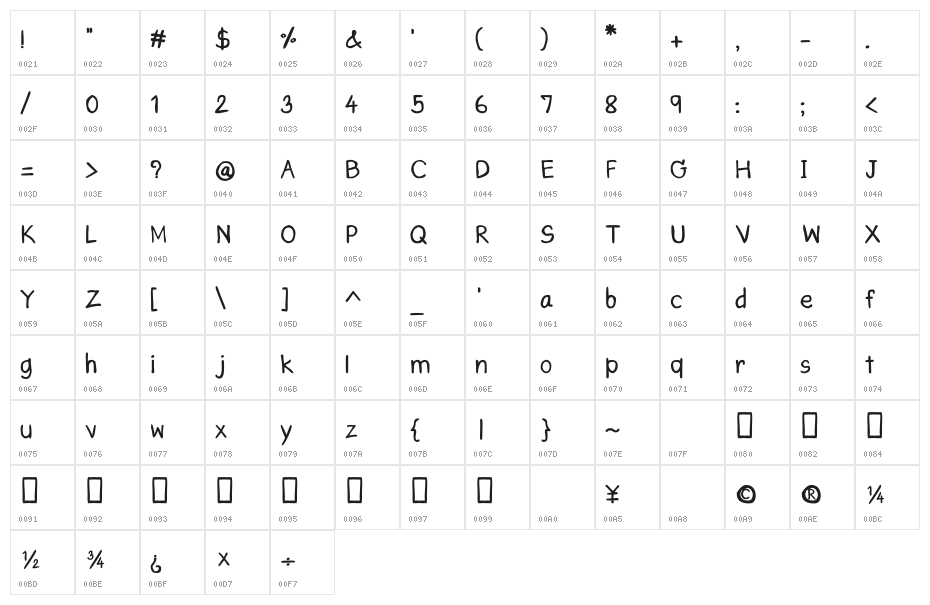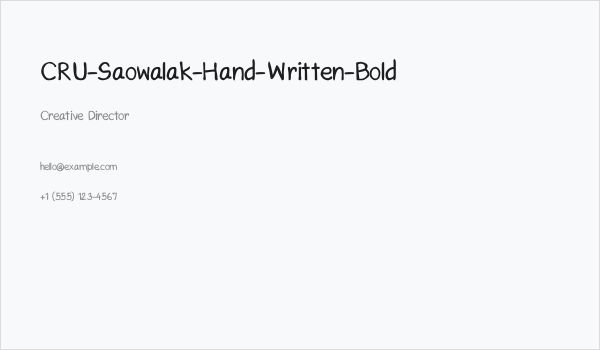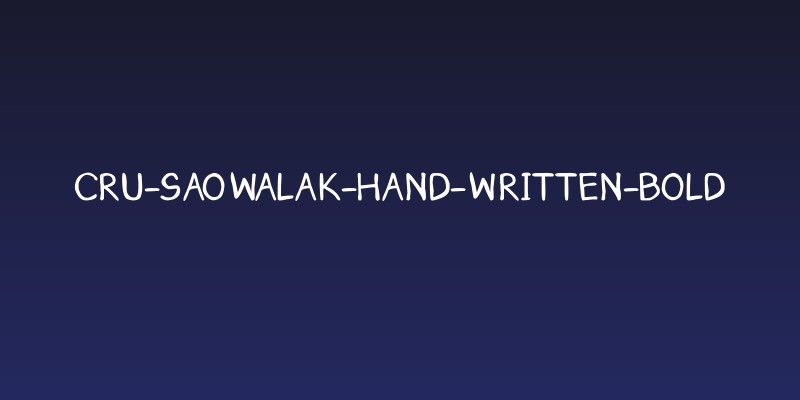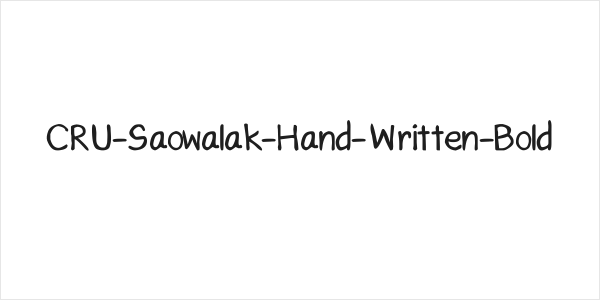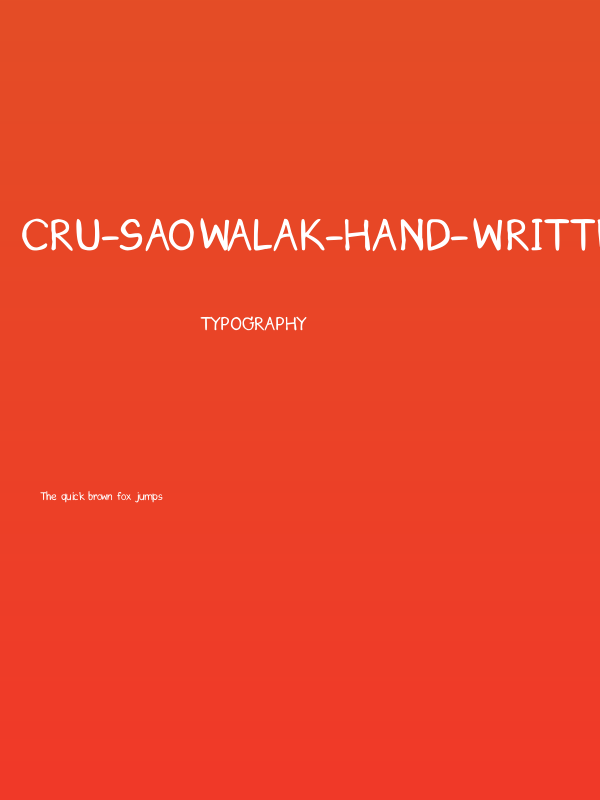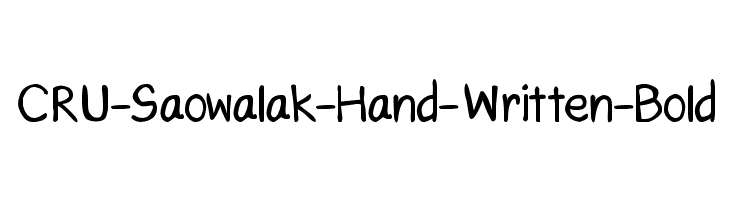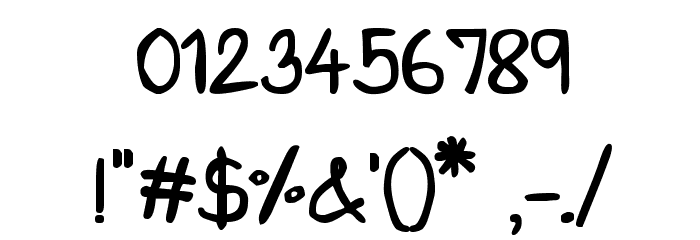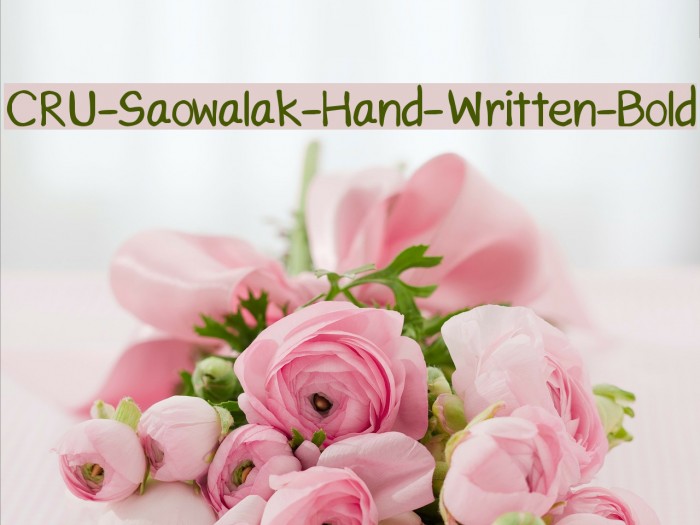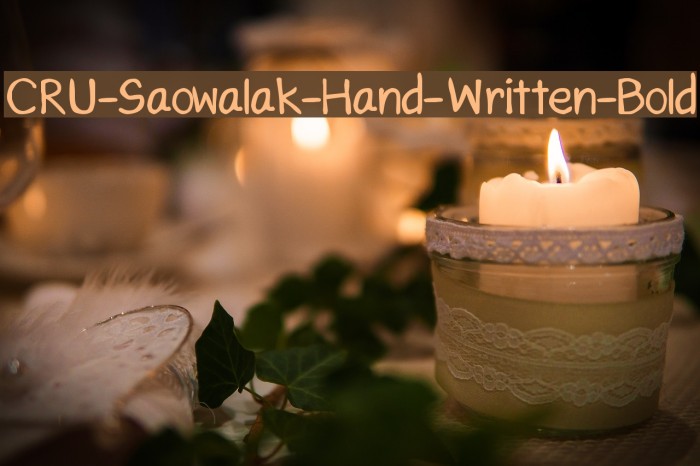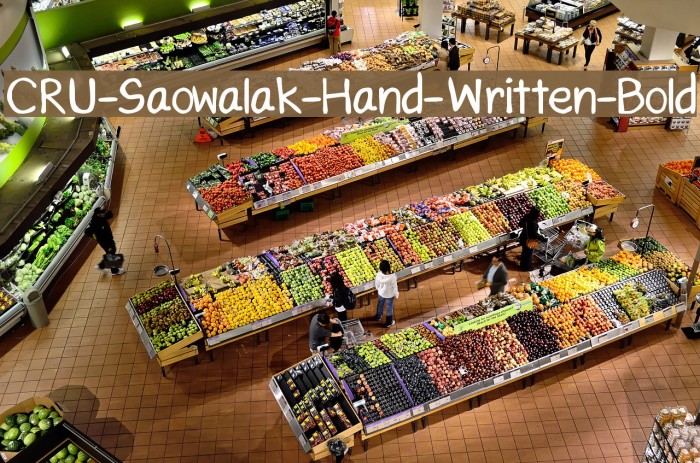
CRU-Saowalak-Hand-Written-Bold Font
CRU-Saowalak-Hand-Written-Bold Description
This font features a playful and casual handwritten style, characterized by its bold and slightly irregular strokes. The letters have a natural flow, mimicking the appearance of handwriting with a marker or pen. The uppercase and lowercase letters maintain a consistent style, with rounded edges and a slight slant, adding to its informal and friendly appearance. The numerals and special characters are designed to match the overall aesthetic, ensuring a cohesive look across all text. This font is ideal for projects that require a personal touch, such as greeting cards, invitations, or creative branding.
| Overall Style | Casual, Playful |
| Use Case | Headlines, Logos, Informal Text |
| Proposed Projects | Ideal for greeting cards, invitations, creative branding, and informal communications. |